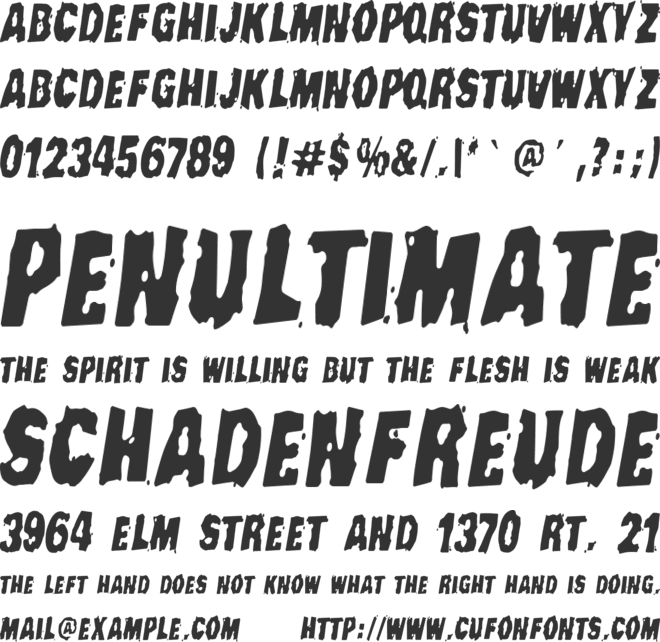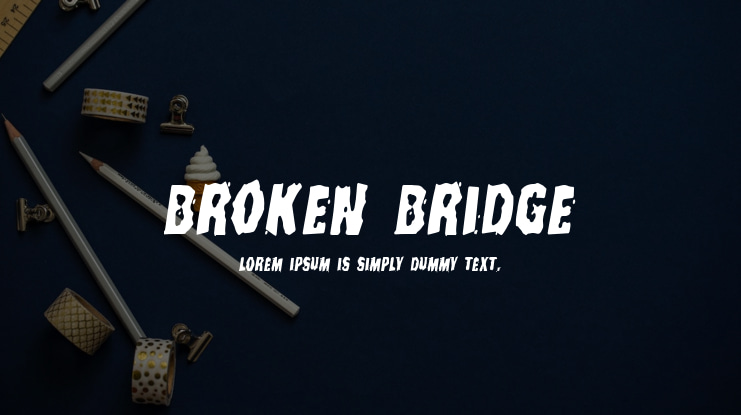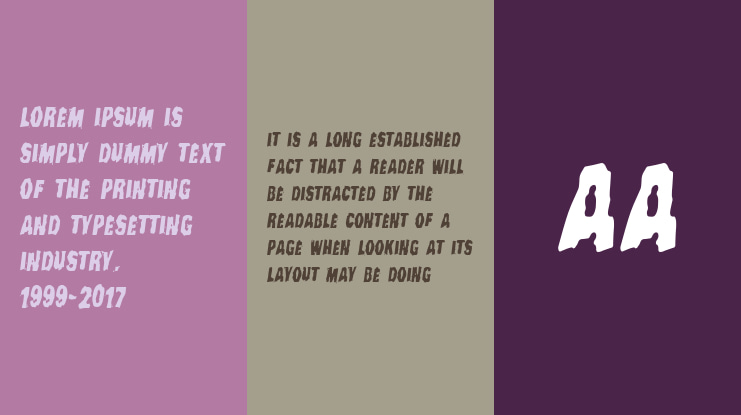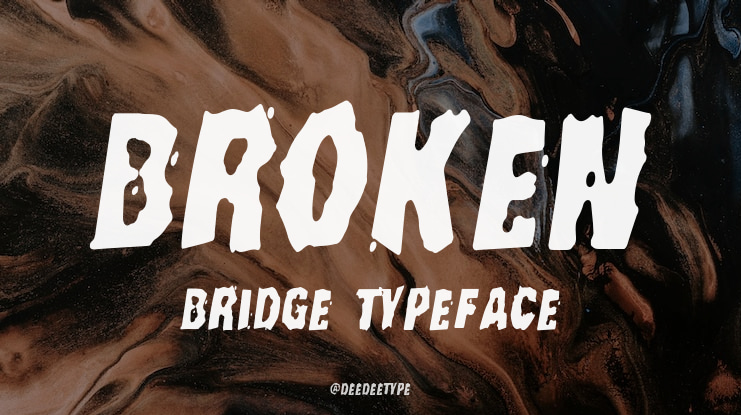
Broken Bridge Font
Broken Bridge — A bold display font with edgy, grunge vibes that shatters expectations and commands attention. Perfect for designs that dare to defy the norm.